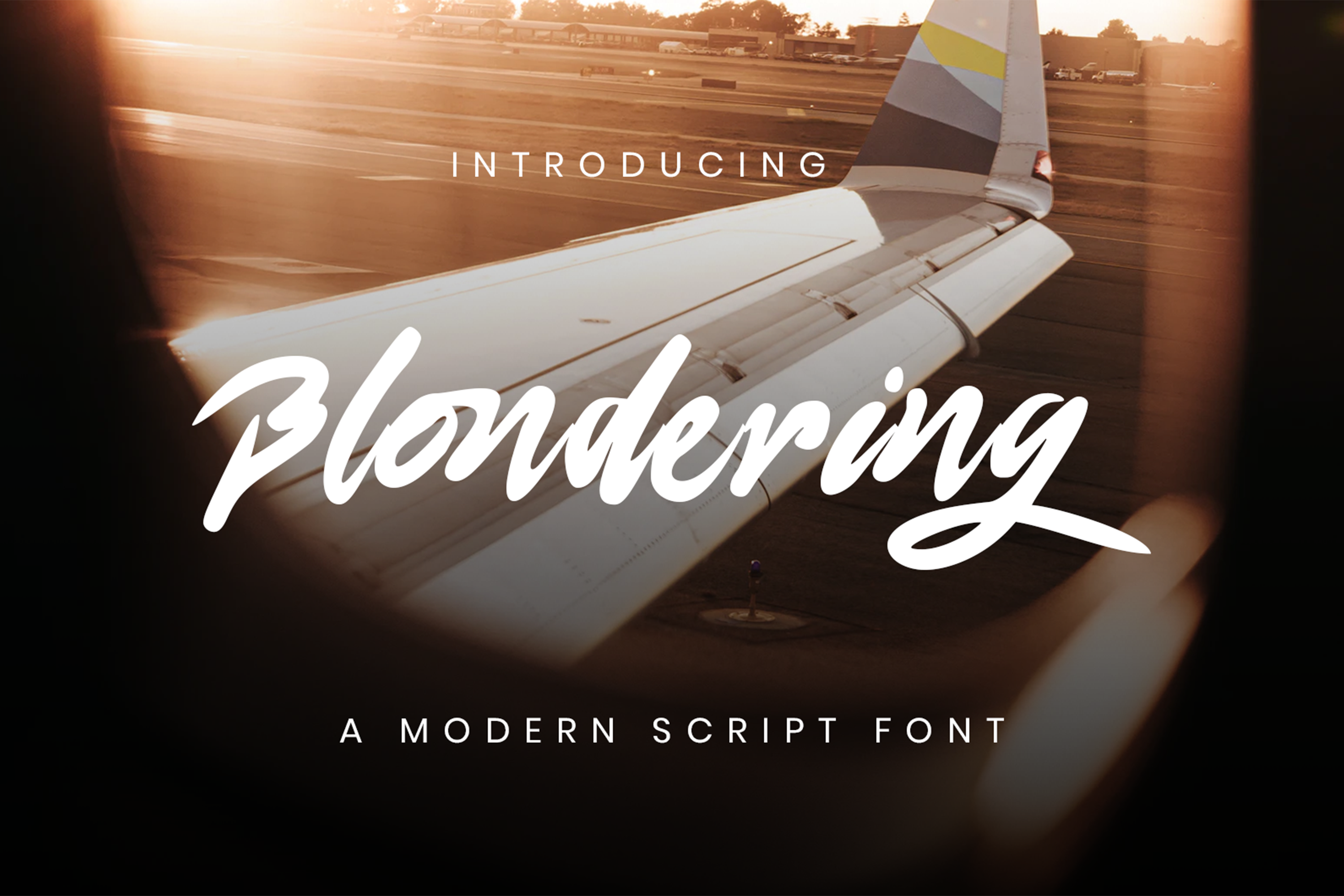
Blondering Modern Script Font
Blondering Modern Script Font Font, is our new font and suitable for mockup or any work.
Great for Sticker, Invitation Card, Brochure, etc.